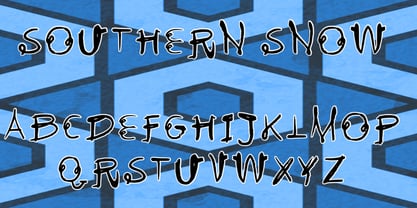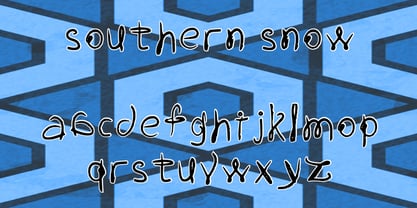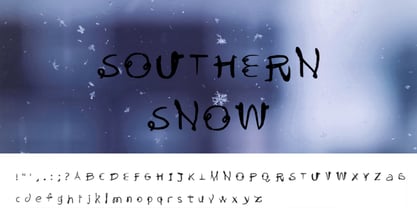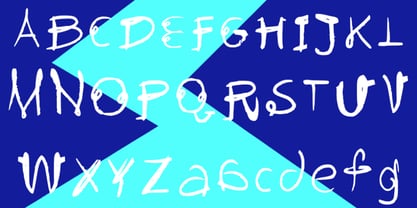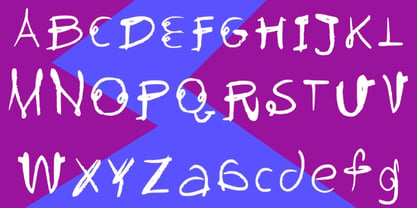
Southern Snow
by Pyramind
The Southern Snow Font Family was designed by Angela Topalova and published by Pyramind. Southern Snow contains 1 styles. More about this family
Introducing Southern Snow, a distinctive decorative typeface designed to infuse elegance, character, and visual interest into any creative project. Meticulously crafted with attention to detail, Southern Snow combines stylistic charm with versatility, making it an ideal choice for both personal and professional applications. Whether designing for print or digital media, this font provides the flexibility and aesthetic appeal necessary to elevate your work. Southern Snow is perfect for a wide array of uses, including branding materials, logos, invitations, greeting cards, social media graphics, posters, packaging, website headers, and more. Its decorative style is particularly effective for projects that demand a refined yet expressive typographic touch. From seasonal designs and event promotions to boutique branding and editorial layouts, Southern Snow delivers a polished and memorable visual presence. Once installed on your computer, Southern Snow can be accessed in virtually any software program that supports custom fonts, including popular applications such as Microsoft Word, Adobe Photoshop, Adobe Illustrator, Adobe InDesign, Canva (desktop version), and many other design and productivity platforms. The installation process is straightforward, ensuring that the font integrates seamlessly into your existing workflow.
Designers: Angela Topalova
Foundry: Pyramind